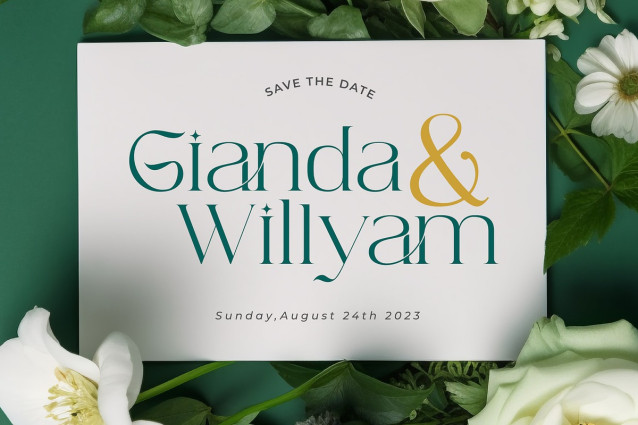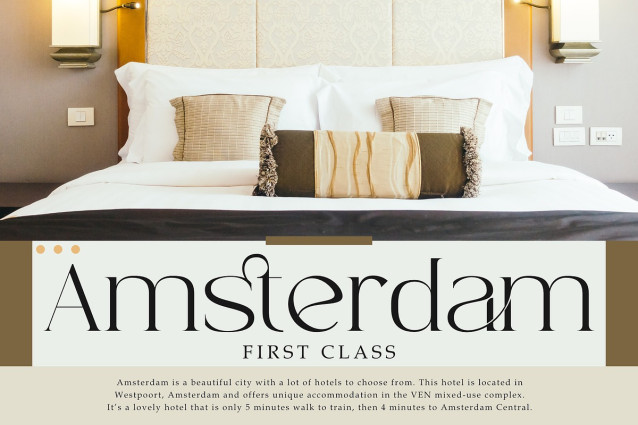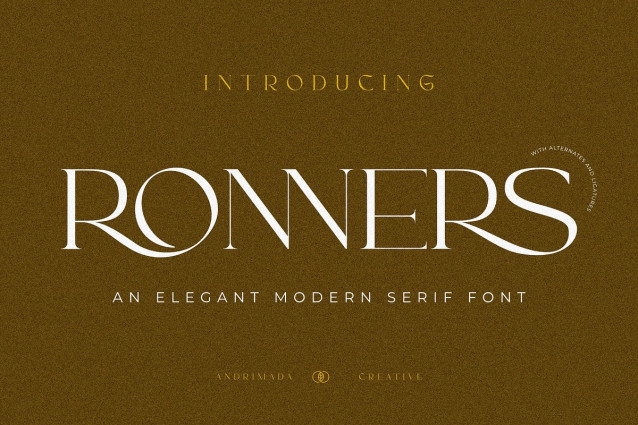
Ronners Font
Ronners Font, an elegant sans serif font that showcases a unique and stylish design. This font is ideal for fashion, branding, and logo design projects that require a touch of sophistication and flair. Whether you need a font for a luxury brand, a high-end product, or an exclusive event, Ronners will make your design stand out with its refined and modern appeal. Get Ronners today and enjoy its beauty and quality.
You can access the alternates and ligatures through OpenType features or by using a glyphs panel. You can also mix and match the uppercase and lowercase letters to create stunning combinations. Ronners comes with a full set of characters, including numbers, punctuation, symbols, and multilingual support.